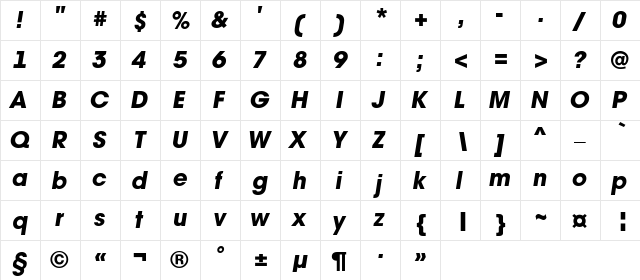
a_AvanteTck HeavyItalic
Design Context for a_AvanteTck Typeface
a_AvanteTck takes a measured approach to typography — its balanced proportions and neutral character make it a reliable workhorse for both digital and print work. The dynamic lean of this cut emphasises speed and emphasis in any layout.
Pro Tip: Try a_AvanteTck for annotation and caption copy alongside an upright companion — the contrast in angle creates a dynamic but ordered typographic system.